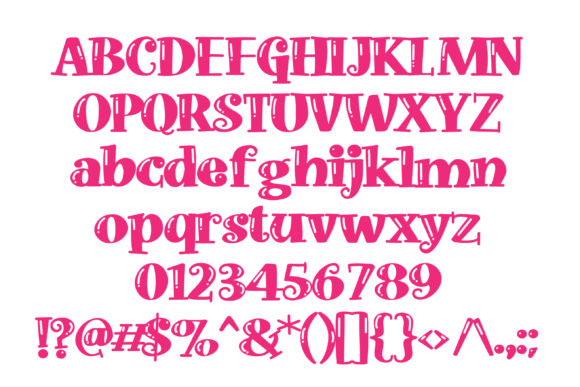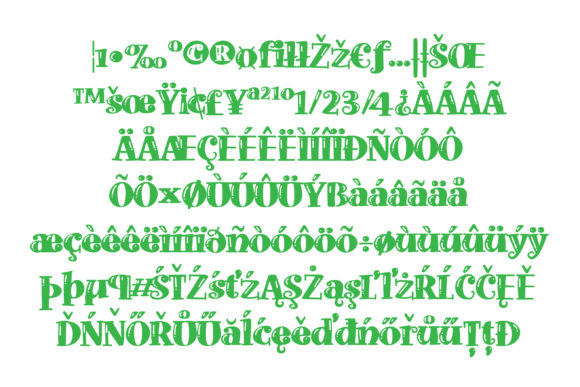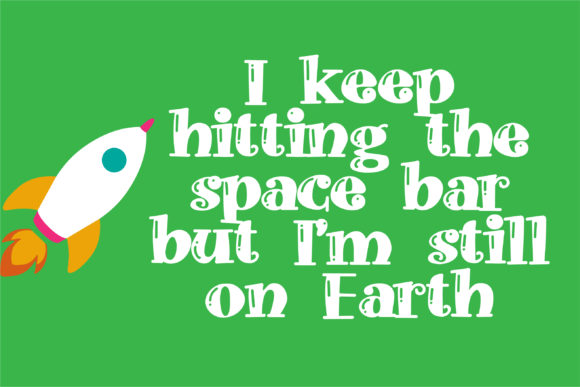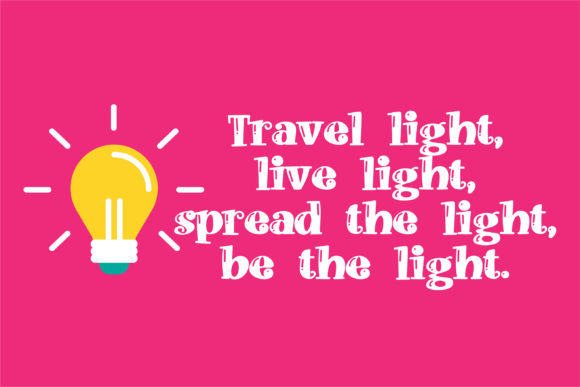
Introducing Doohickey Shine Font: A Whimsical Serif Font with a Touch of Sparkle
Are you tired of using the same old fonts in your designs? Look no further than the Doohickey Shine Font, a unique and eye-catching serif font that adds a touch of whimsy to any project. With its plump and playful curves, this font is sure to make your designs stand out from the crowd.
A Font with a Little Extra Something
What sets the Doohickey Shine Font apart from other serif fonts is its distinctive shine mark, which runs throughout the letters. This subtle detail adds a touch of sophistication and elegance to the font, making it perfect for designs that require a bit of extra flair. Whether you’re working on a logo, a heading, or a paragraph of text, the Doohickey Shine Font is sure to add a touch of personality to your design.
Meet the Family: Doohickey Shine and Doohickey
The Doohickey Shine Font is part of a font family that includes its sister font, Doohickey. While the Doohickey Shine Font features a shiny, sparkly effect, the Doohickey font is a solid, non-shine version of the same design. This means that you can use both fonts together to create a cohesive look, or use them separately to add some variety to your designs.
Design and Craft Inspiration
The Doohickey Shine Font is perfect for designers and crafters who want to add a touch of whimsy and personality to their work. Here are a few ideas for using this font in your designs:
- Crafting and DIY projects: The Doohickey Shine Font is perfect for crafting and DIY projects, such as labels, signs, and cards. Its playful, whimsical design makes it a great fit for handmade or vintage-inspired projects.
- Branding and logos: The Doohickey Shine Font is a great choice for logos and branding projects that require a bit of extra flair. Its unique shine mark makes it a memorable and eye-catching choice.
- Stationery and invitations: The Doohickey Shine Font is a great choice for stationery and invitation designs, such as wedding invitations, birthday cards, and thank-you notes.
Key Features of the Doohickey Shine Font
Here are some key features of the Doohickey Shine Font:
- Serif font: The Doohickey Shine Font is a serif font, which means that it features small lines or flourishes at the ends of the letters.
- Whimsical design: The Doohickey Shine Font has a playful, whimsical design that’s perfect for adding a touch of personality to your designs.
- Shine mark: The Doohickey Shine Font features a distinctive shine mark that runs throughout the letters, adding a touch of sophistication and elegance.
- Plump and playful curves: The Doohickey Shine Font has plump and playful curves that make it a joy to use in designs.
The Doohickey Shine Font is a unique and eye-catching serif font that’s perfect for designers and crafters who want to add a touch of whimsy and personality to their work. With its distinctive shine mark and playful curves, this font is sure to make your designs stand out from the crowd. Check out its sister font, Doohickey, for a solid, non-shine version of the same design.